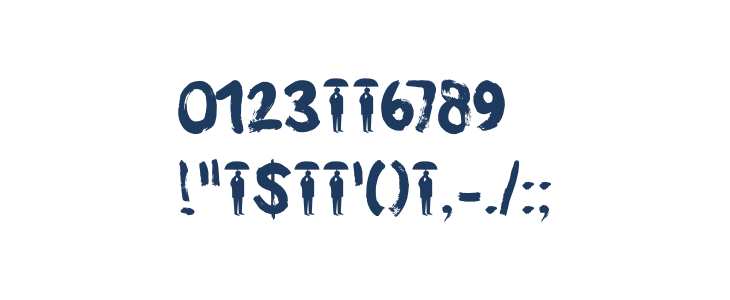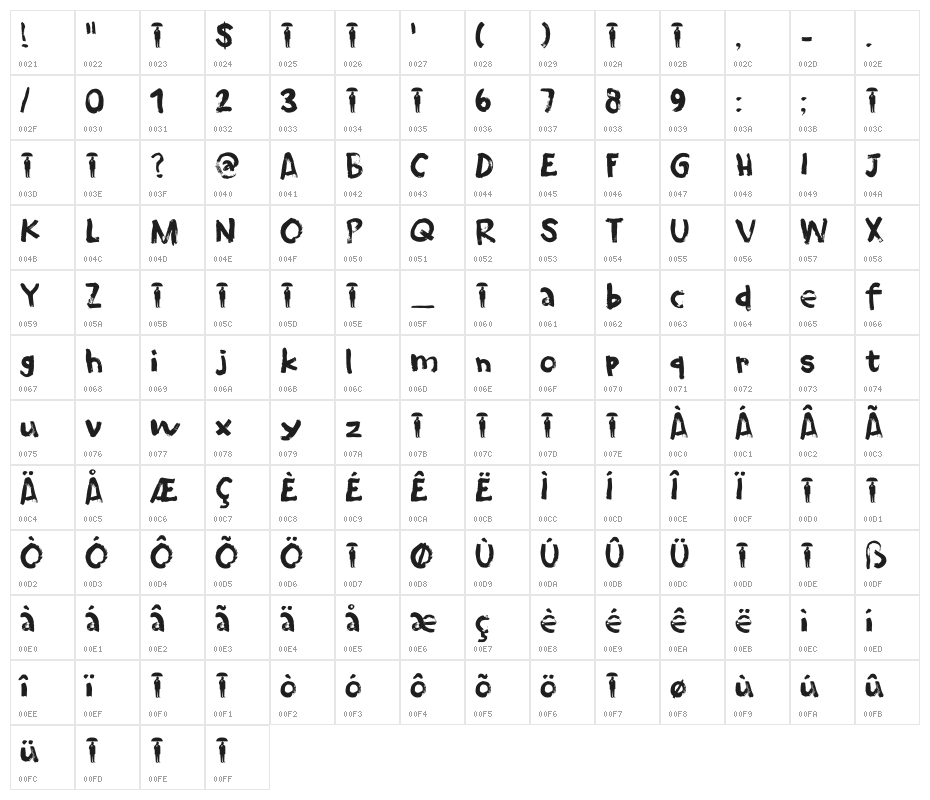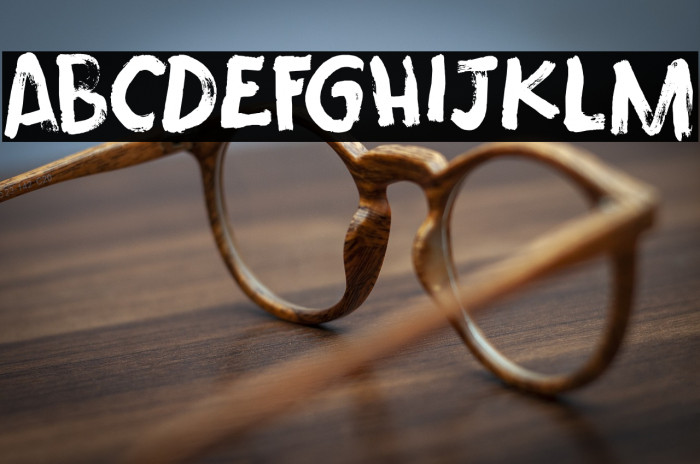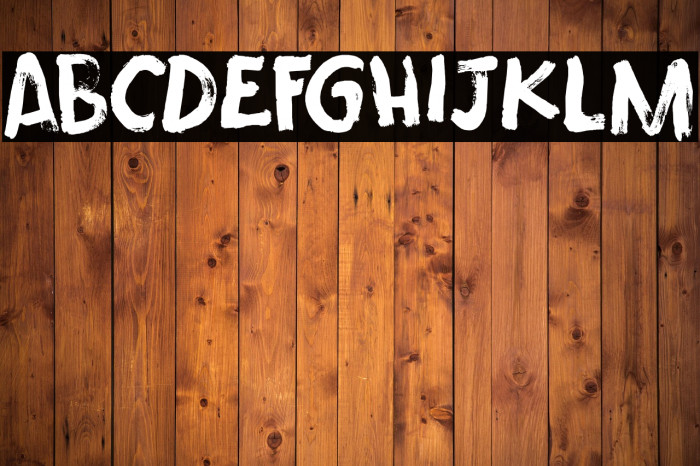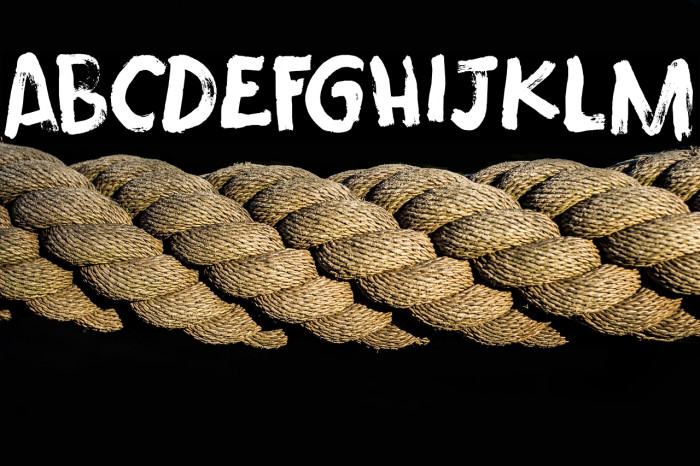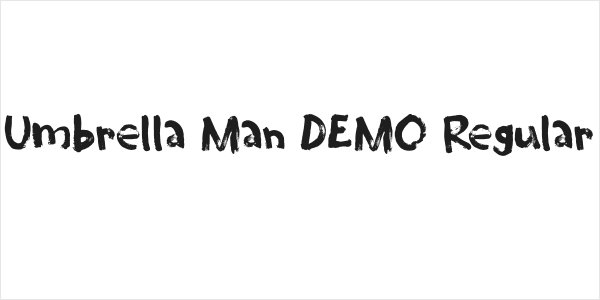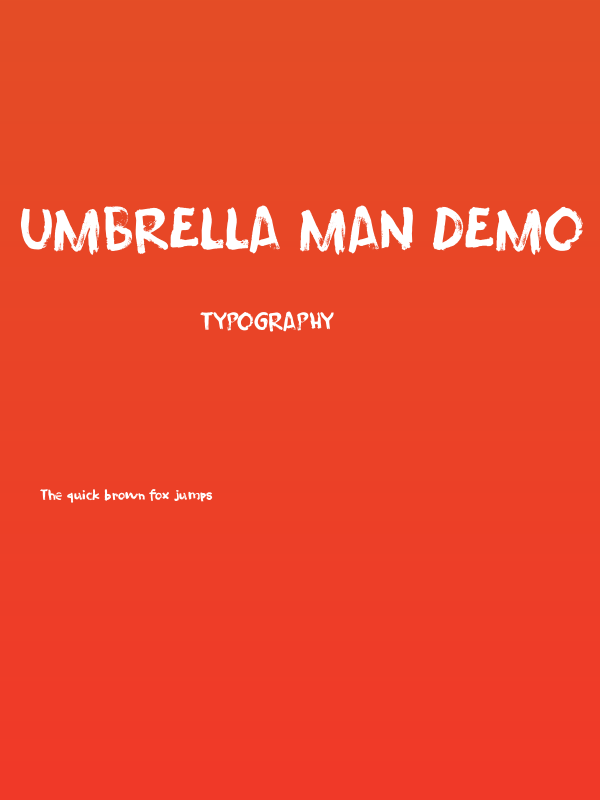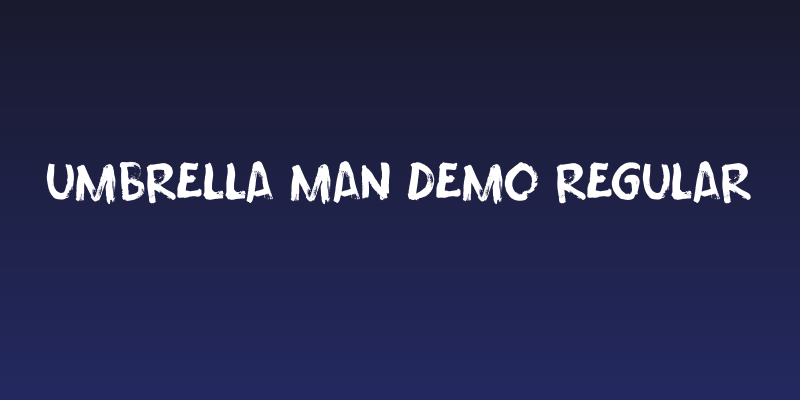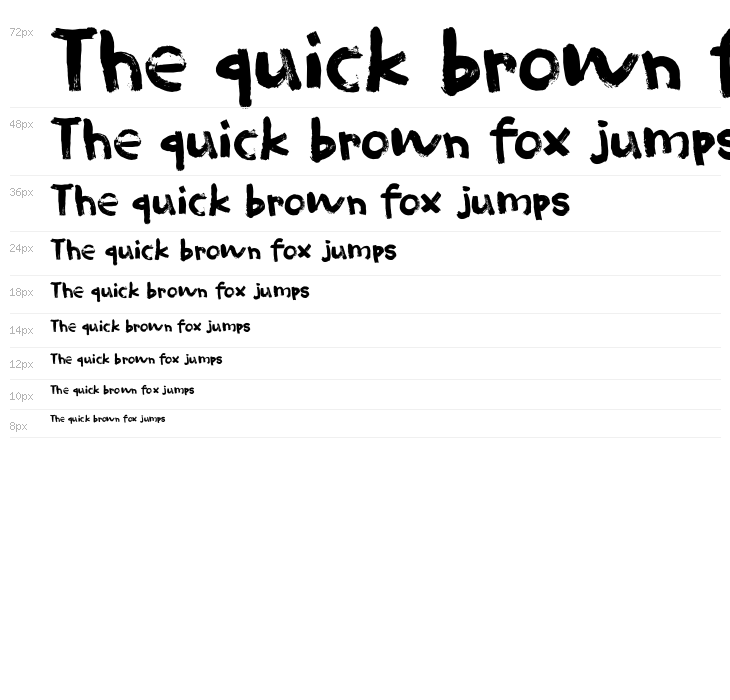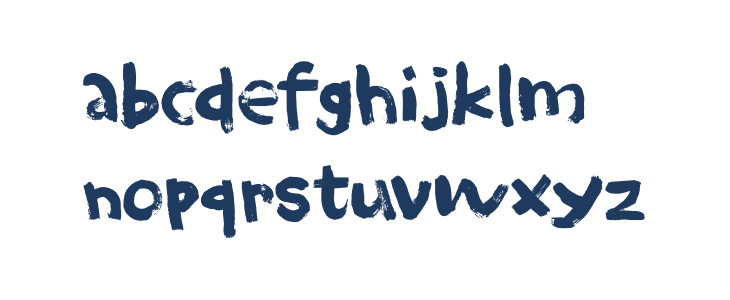
Umbrella Man DEMO Regular Font
Umbrella Man DEMO Regular Description
This font features a bold, brush-stroke style that exudes a sense of dynamic energy and artistic flair. The characters are crafted with irregular edges, giving them a hand-painted appearance that is both expressive and unique. The uppercase and lowercase letters maintain a consistent style, while the numbers and special characters incorporate playful elements, such as the inclusion of umbrella motifs. This font is ideal for projects that require a creative and unconventional touch, making it perfect for artistic branding, posters, and unique logo designs.
| Overall Style | Artistic, Expressive |
| Proposed Projects | Ideal for artistic branding, posters, unique logo designs, and creative projects. |